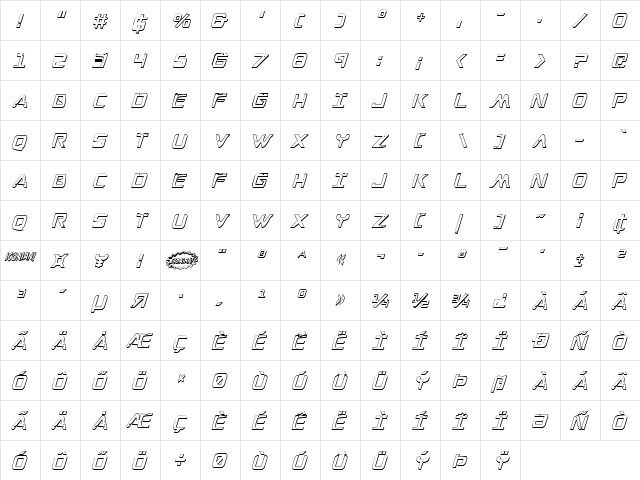
War Eagle 3D Condensed Italic Font Preview
Design Context for War Eagle 3D Condensed Italic Typeface
War Eagle 3D Condensed Italic takes a measured approach to typography — its balanced proportions and neutral character make it a reliable workhorse for both digital and print work. The dynamic lean of this cut emphasises speed and emphasis in any layout. Its narrow stance lets it pack a punch even in space-constrained designs.